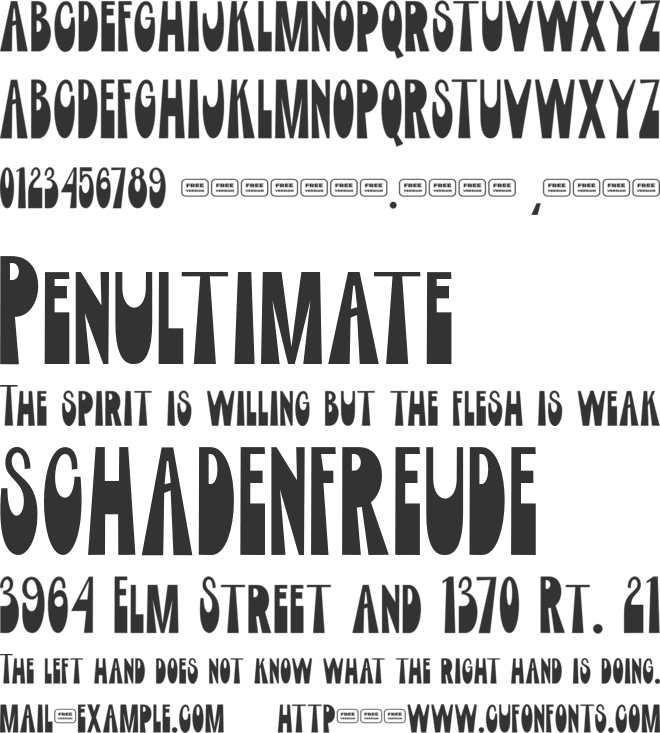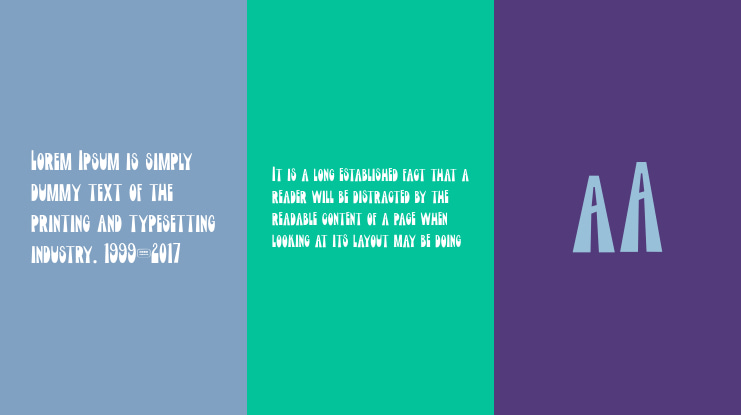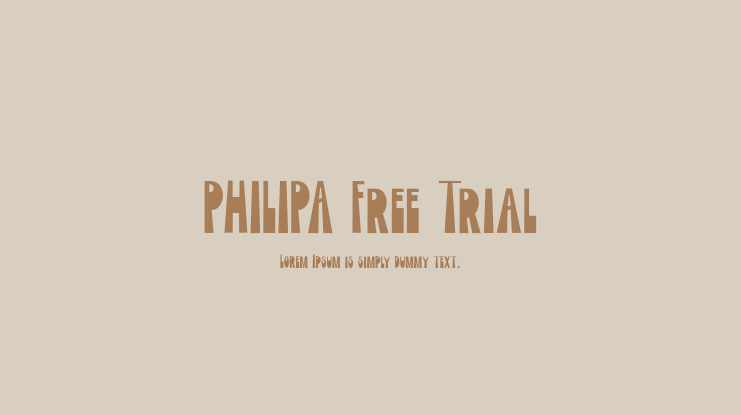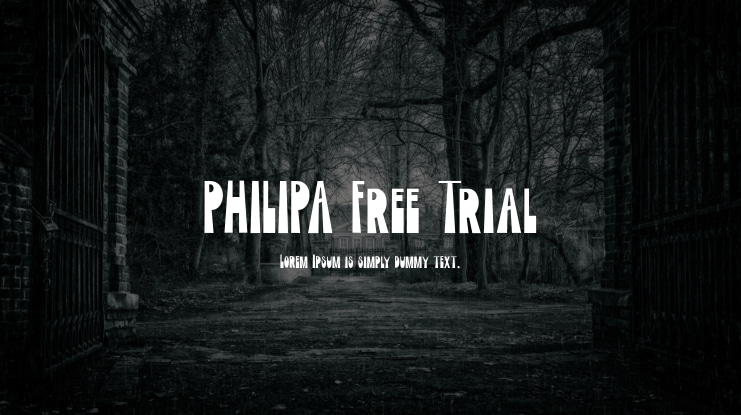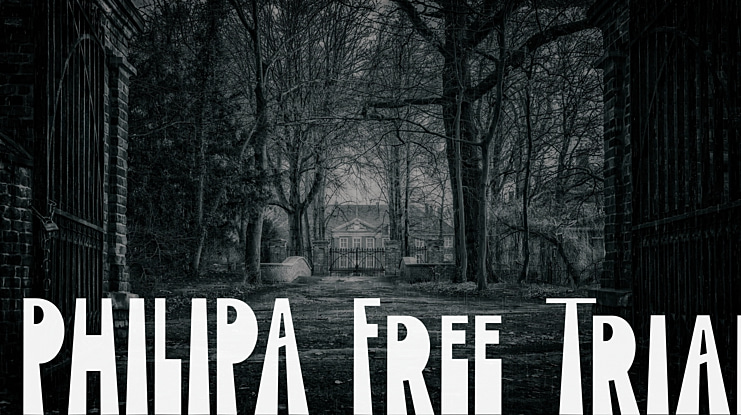
PHILIPA Free Trial Font
Philipa is a tall display font, carefully handcrafted to become a true favorite.
Its casual charm makes it appear wonderful down-to-earth, readable, ultimate, and versatile.
This font will look outstanding in any context, whether it’s being used on busy backgrounds or as a standalone headline especially on cute design!